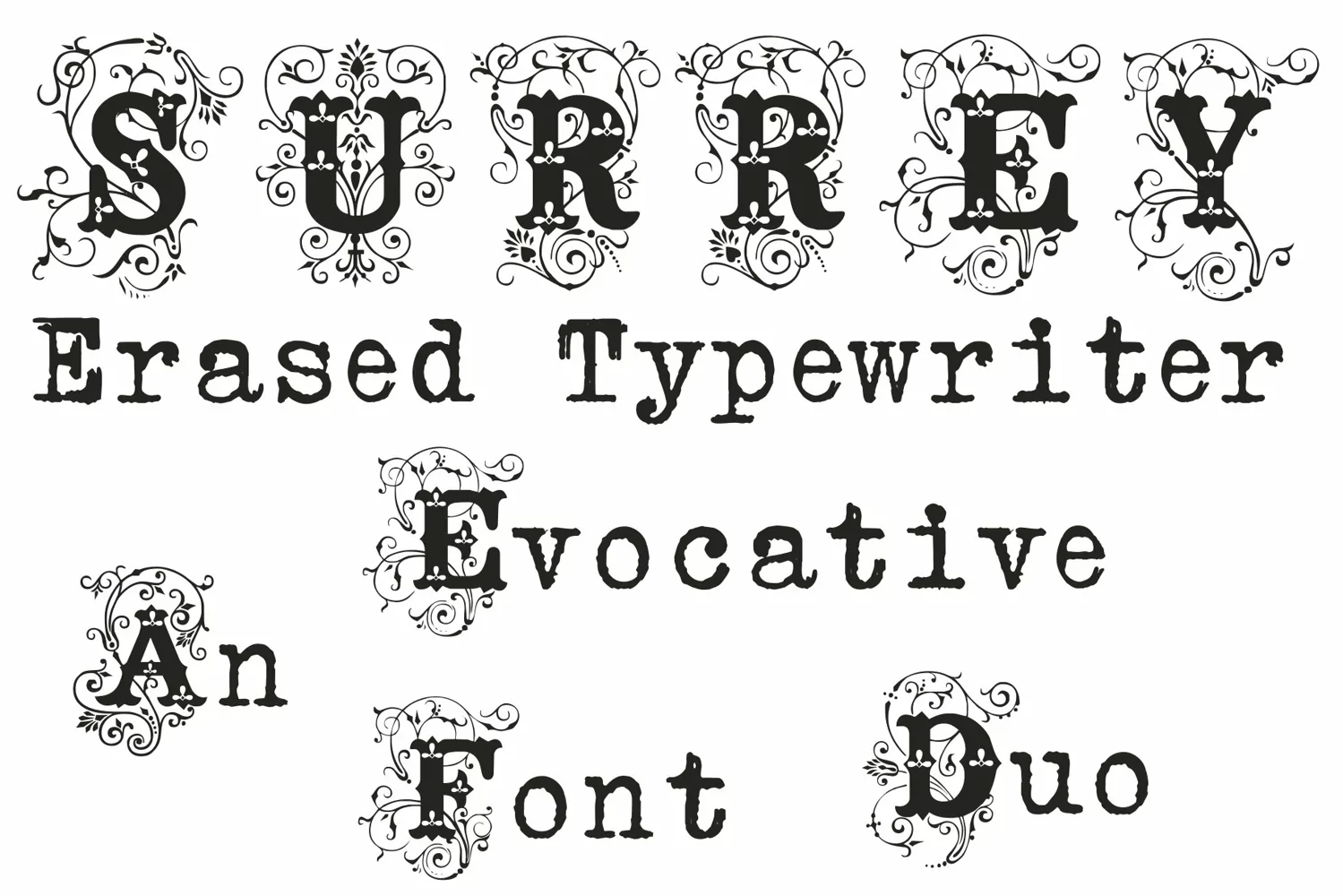
DUO Surrey PLUS Erased Typewriter
Surrey
If you're looking for a stylish and versatile font duo for your design projects, this is a great choice : Surrey and ErasedTypewriter might be just what you need. This font set features a highly ornamental initials font a modern and grunge typewriter font, which work together to create an elegant and sophisticated visual
So if you're looking for display look which combines rechrché style with modern functionality, this duo is definitely the great choice